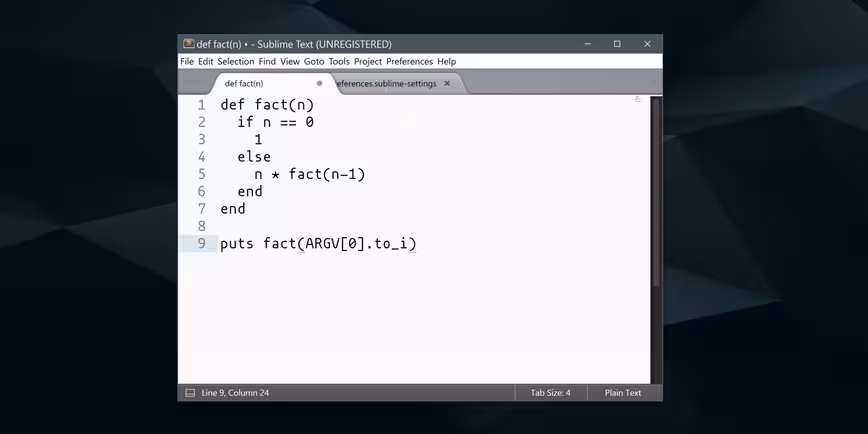
Mononoki is a free easy-to-read font for programmers
Mononoki
If you’ve been looking for a way to make your favorite IDE or text editor easier to work with, you might want to start with the font you use for coding.
Mononoki is a beautiful new monospace font by designer Matthias Tellen. It’s available for free in four weights (regular, italic, bold and bold italic) and was created with a view make it easier to review code.
To that end, it’s highly legible thanks to its easily distinguishable characters. It also works well on both high- and low-resolution displays in just about any (sensible) color scheme.